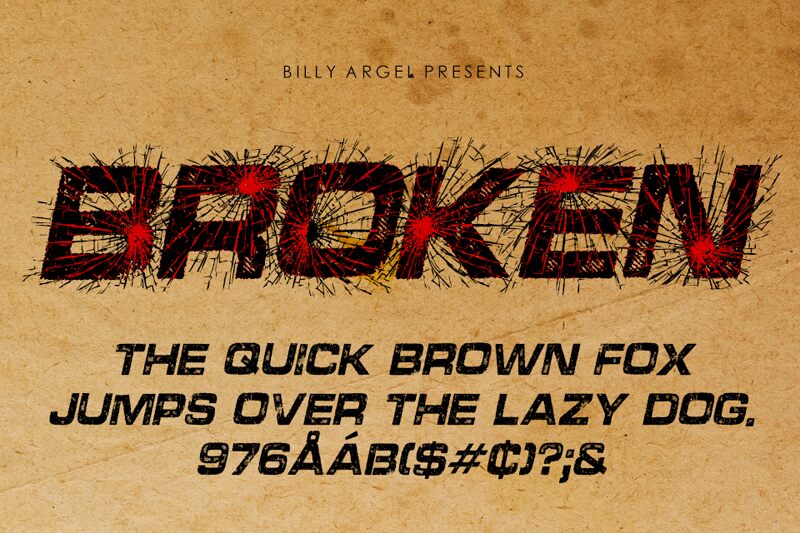
BROKEN PERSONAL USE Bold
With its distorted shapes and expanded width, Broken Bold is a display font that demands attention. Designed by Billy Argel Fonts, this bold typeface is perfect for projects that require a touch of edginess and rebellion. From posters to album covers, Broken Bold can add an extra layer of attitude to your designs. Its unique style also makes it ideal for branding projects that aim to stand out from the crowd. Let Broken Bold do the talking and watch your message come to life with its bold and daring personality.
Two overlapping fonts! Two versions bold and bold italic.